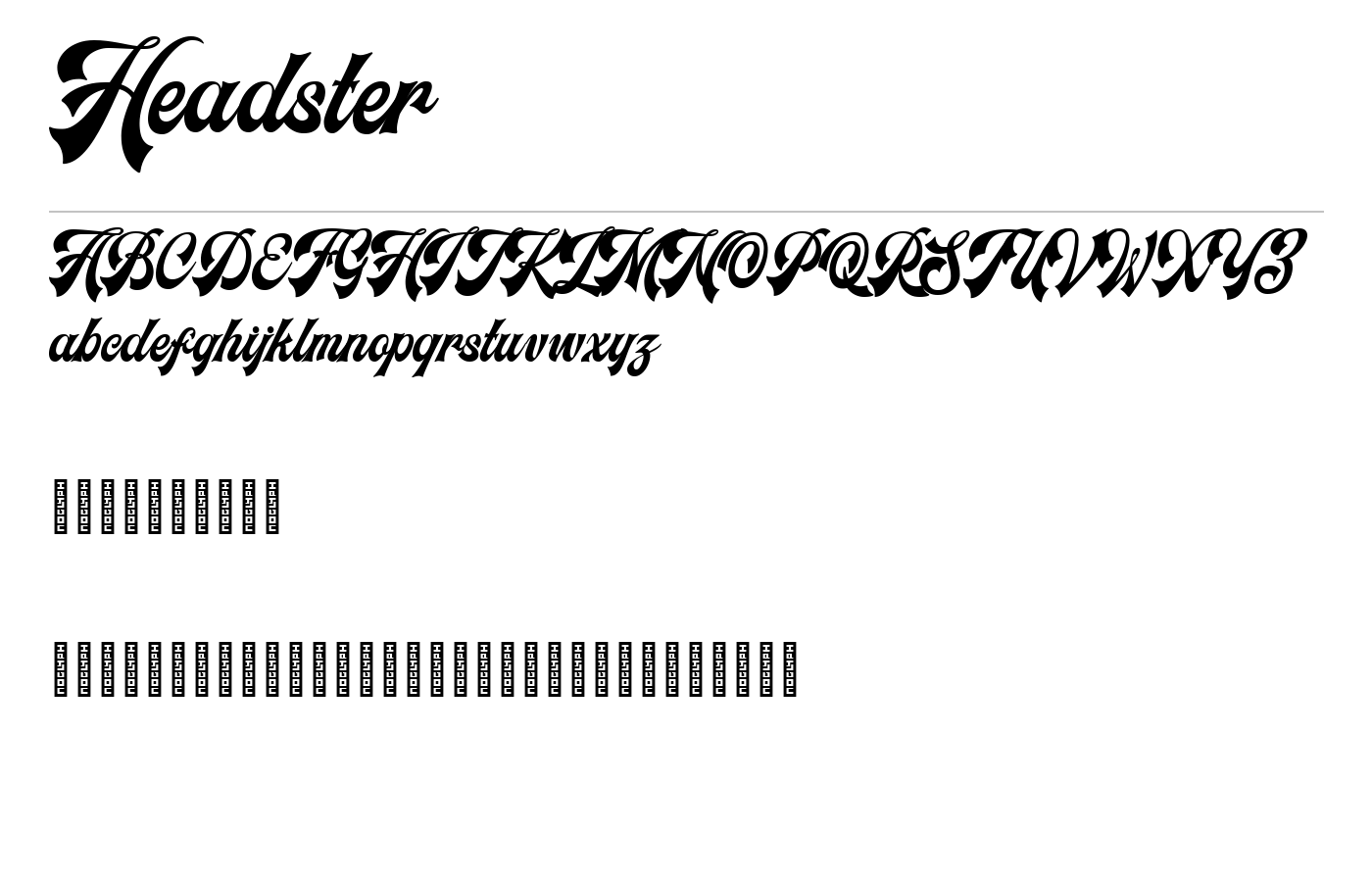
Headster Vintage Font Demo is a bold, script-style typeface with a strong vintage flair, featuring thick strokes and dramatic curves that evoke a sense of classic elegance and retro charm. Its high contrast between thick and thin lines, along with stylized uppercase letters and a flowing lowercase set, makes it ideal for logos, headlines, and branding that seek a distinctive, nostalgic personality. This font works best in designs that want to communicate sophistication with a touch of old-school flair, perfect for fashion, luxury, and premium product identities.
Headster Vintage Font Demo
| Font family | Headster Vintage Font Demo |
| Designer | Bombastype |